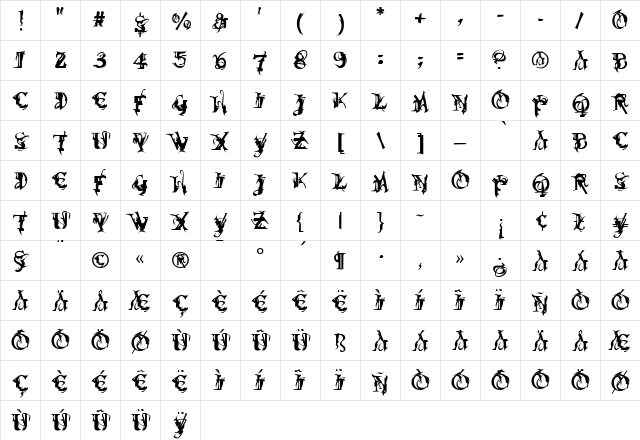
Osprey Medium Free Font
Osprey Medium
Design Context for Osprey
Osprey is a composed and adaptable typeface that performs quietly and consistently across a wide range of design contexts.